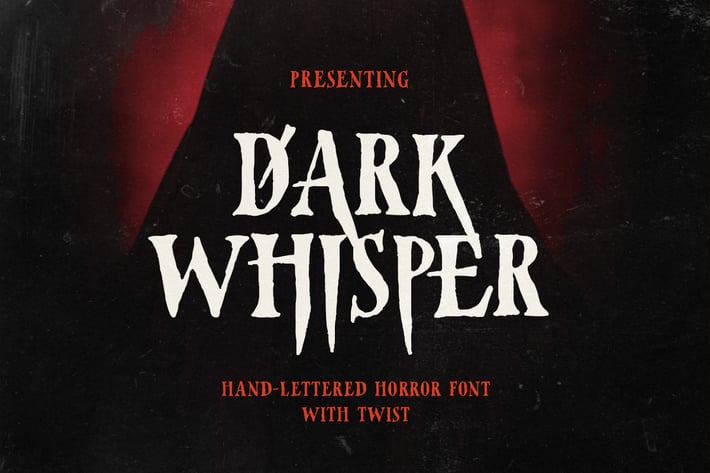
Dark Whisper - Serif Horror Font
Dark Whisper is a hand-lettered serif font that have eerie, horror-inspired vibes, perfect for adding a creepy edge to your designs. Its distinctive style ensures your work stands out, making it an ideal choice for movie posters, especially for thriller and horror genres. With its unique lowercase characters, this font brings a stylish flair to any project, helping your designs pop. Its versatility makes it suitable for various creative applications, and it supports multiple languages, offering broad usability. Elevate your next Halloween poster or any spooky design with the chilling charm of Dark Whisper!